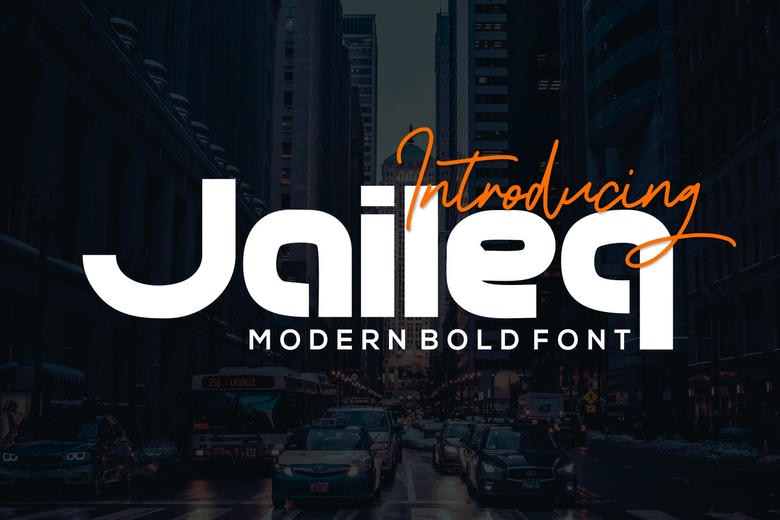
Jaileq Font
Jaileq is a stylish and display font. Modern and new, this font will take any work to the next level! The typeface is ideal in classy logos, branding, travel advertisements, layout magazines, beauty products, product packaging, quotes, or just as a classy text overlay on any background image.
Jaileq Display Font